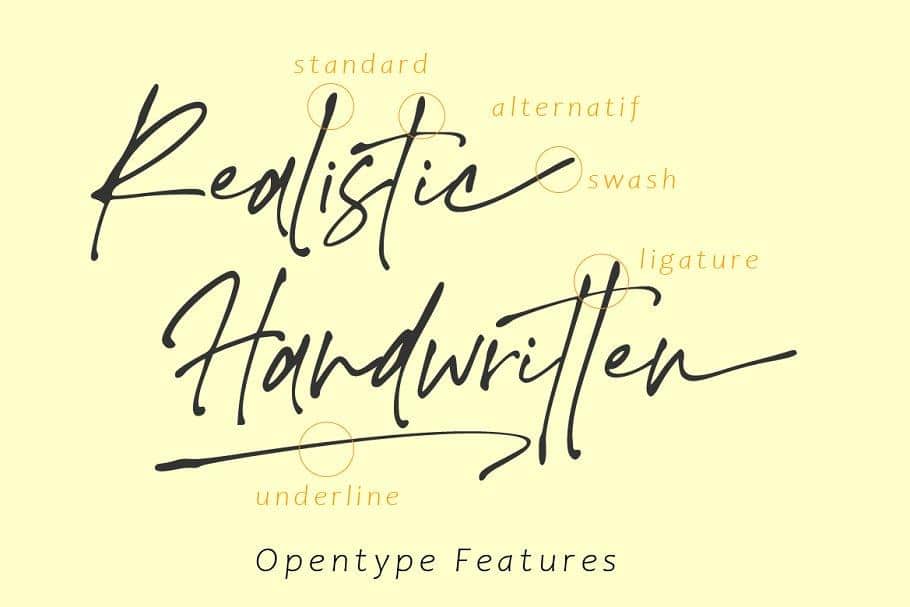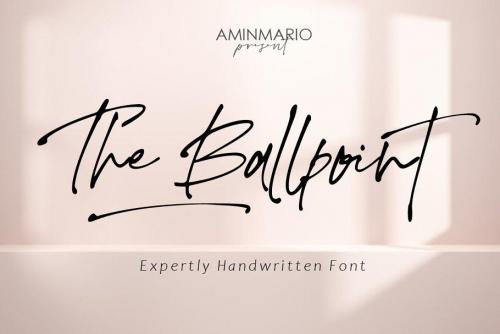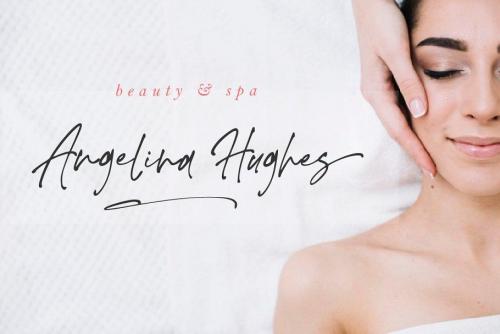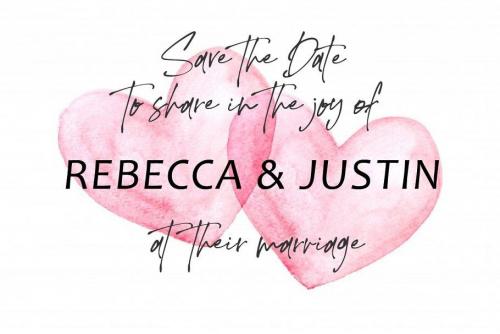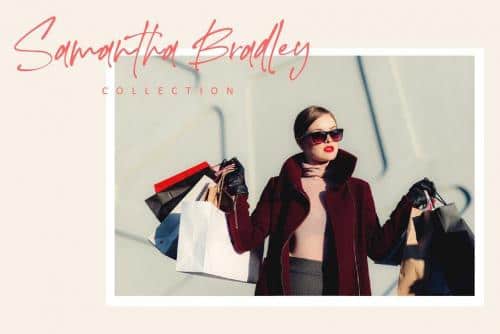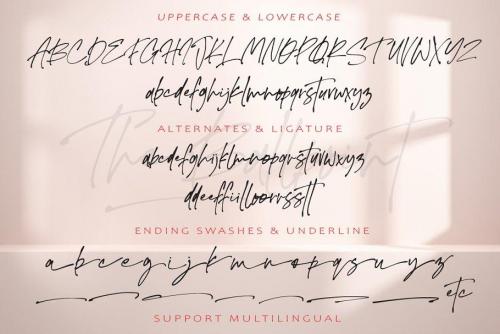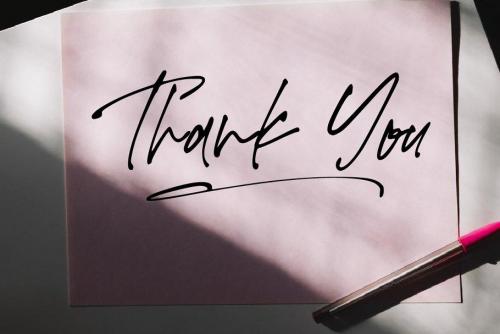
The Ballpoint Handwritten Script Font was created to look as close to a natural handwritten script as possible by including lowercase alternates, lowercase swash, ligature and underlines. Mix and match lowercase regular with several lowercase alternatives to get your new ligature. Perfect for any awesome projects that need hand writing taste.